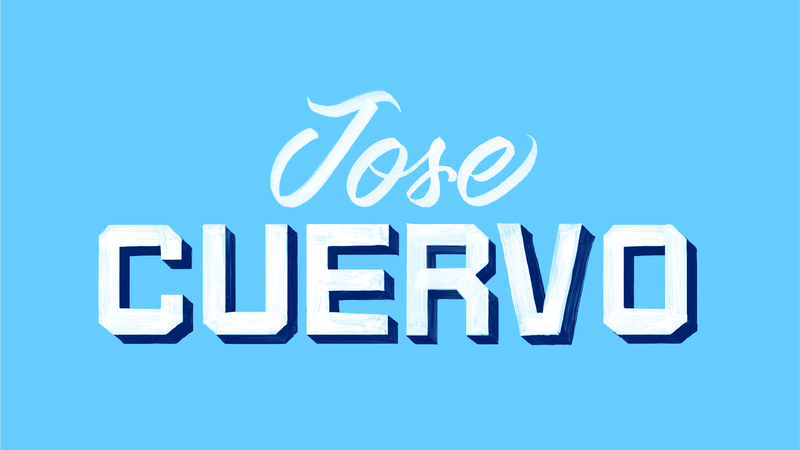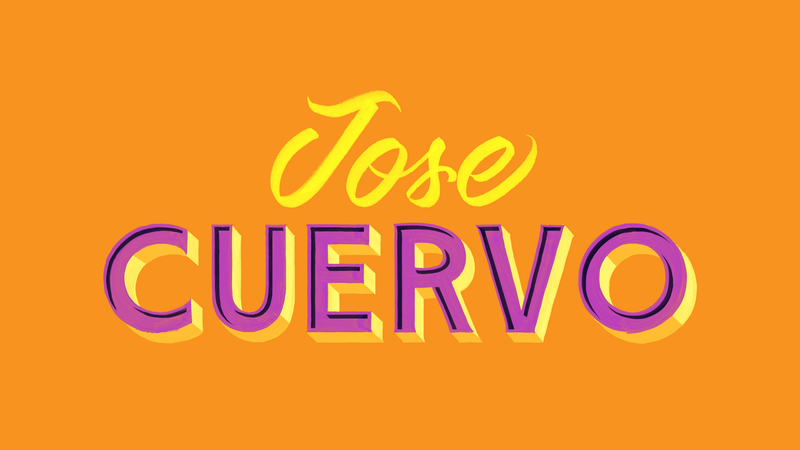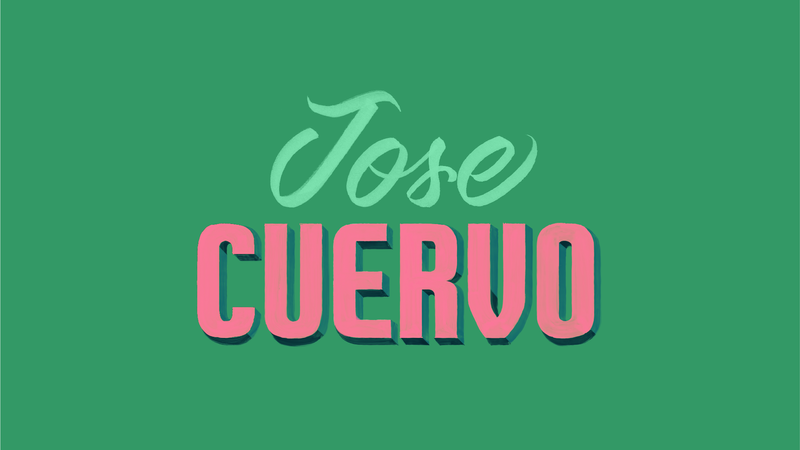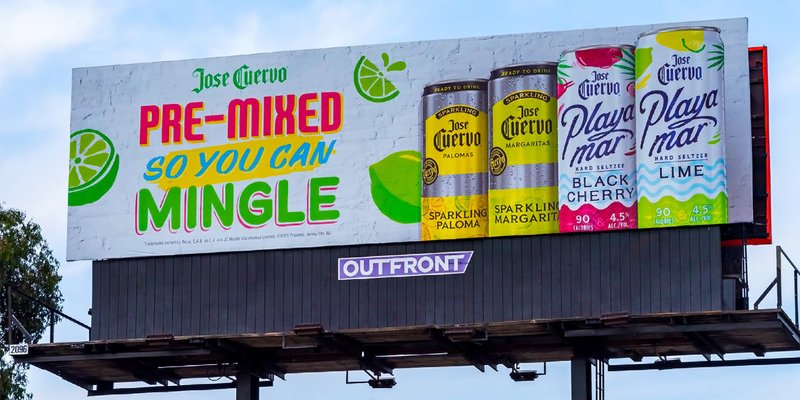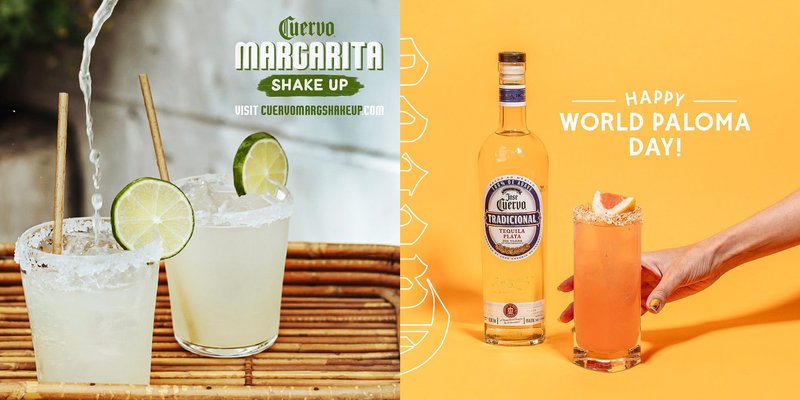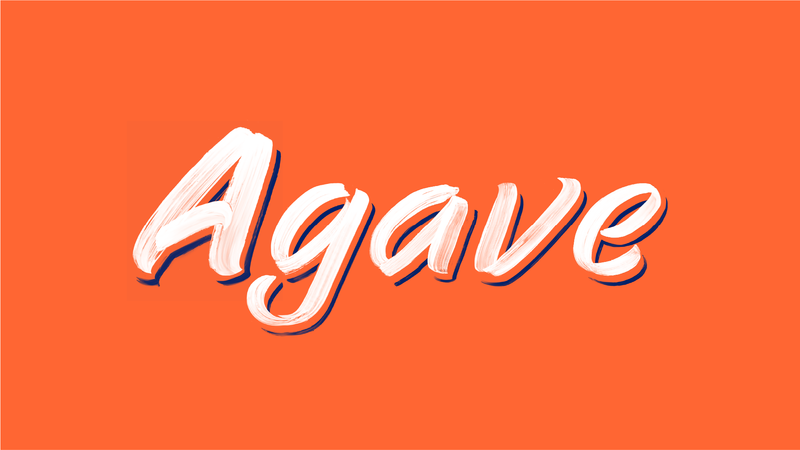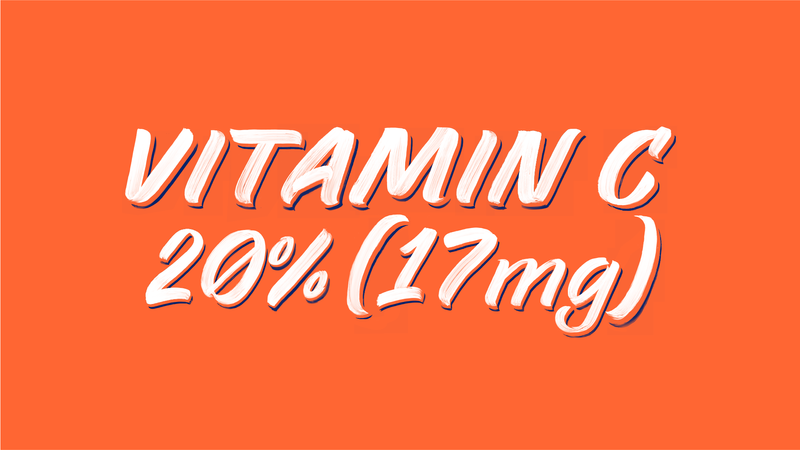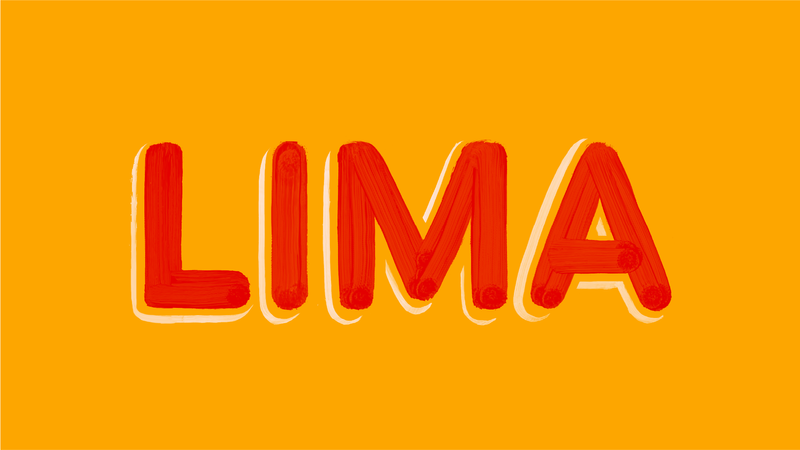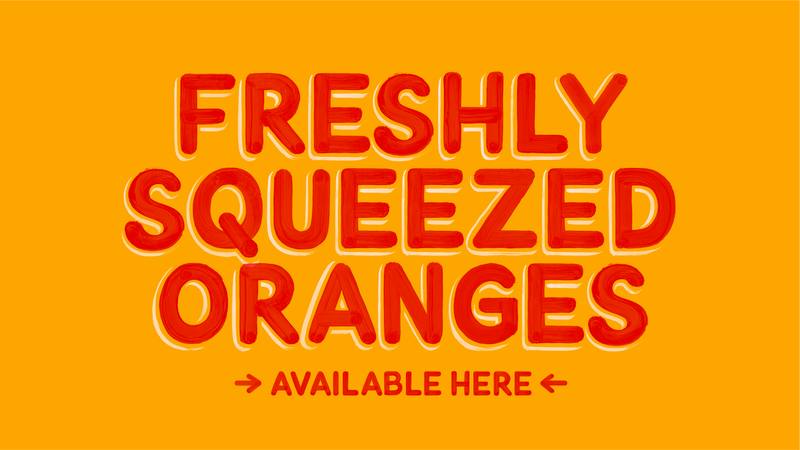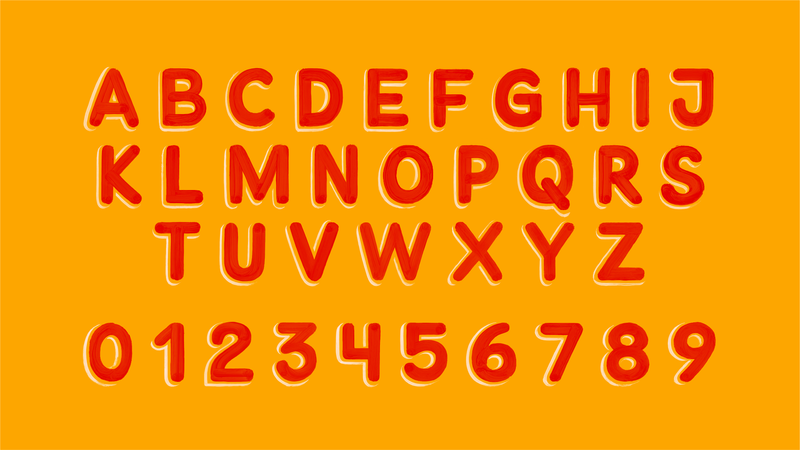
What happens when you combine an award-winning advertising agency, a spirited lettering artist, the world’s best-selling tequila, and XYZ Type? You get a unique combination of sign painting and typographic technical know-how that delivers above and beyond for the client.
Custom typeface for Jose Cuervo
Inspired by classic Mexican sign painting
Advertising agency Mekanism commissioned Mexican-born, NYC-based lettering artist Abraham Lule to create custom sign painting by hand for tequila brand Jose Cuervo. Ben Kiel translated the painted artwork into working color fonts that Mekanism could use in print and digital advertisements.
In celebration of Jose Cuervo’s two-century-old business in the town of Tequila, Jalisco, Abraham painted energetic letterforms in six distinct styles based on classic Mexican sign painting, including a rigid block style, a casual script, and a gothic with a 3D drop shadow. All told, he painted nearly a thousand glyphs and scanned the best examples, which became the basis for Ben’s work.
This complex job couldn’t be completed without the expertise and optimism of someone like Ben Kiel. Of the many challenges involved in designing bespoke fonts, this project included retaining the transparencies of sign painting into each character through pixels, not vectorial images, which is a rarity in our field.
Abraham Lule, lettering artist
Technical know-how and aesthetic precision
Ben called on his unique combination of technical acumen in font engineering, coding, and type design to strategically address the thorny problems of turning complex, colorful lettering into usable font files.
The first step was to determine the best technology for the job. To create color fonts, Ben knew that he could use either vector or raster formats, and that each had pros and cons.
It was a whole nerdfest, how to get it to work.
Ben Kiel, XYZ Type
Vector-based fonts would produce relatively small files and would be easy to scale to large sizes, but they would also look digital and feel less authentic. Raster files would keep the brush texture of the original lettering, but with downsides in file size and software compatibility.
To meet the technical requirements without compromising the lettering’s “perfectly imperfect” aesthetic, Mekanism decided they needed the flexibility to have it both ways. So, Ben built all the fonts twice.
Jose Cuervo Pepino’s OpenType code in action
To create fonts up to speed with the latest technologies, he used custom shell scripts, unique Photoshop workflows, and special Robofont tricks. And for the script typeface’s contextual alternates, he wrote intelligent OpenType code to deploy Abraham’s many glyph paintings into a spontaneous flow with smooth connections.
Throughout the process, Ben’s confidence and clarity of speech helped me focus on the design of the characters. At the same time, he successfully turned the letters into fonts, alleviating the pressure of a project of this scale. He delivered on every single detail above and beyond.
Abraham Lule, lettering artist
Delivering the goods
Ben developed special shell scripts and unique Photoshop workflows, and pulled some special RoboFont tricks out of his hat, to help create an unorthodox family of six typeface styles with tequila-inspired names. And through clever problem-solving and some highly skilled sign painting, together Ben and Abraham distilled an iconic Mexican aesthetic into a refreshing voice for Jose Cuervo.